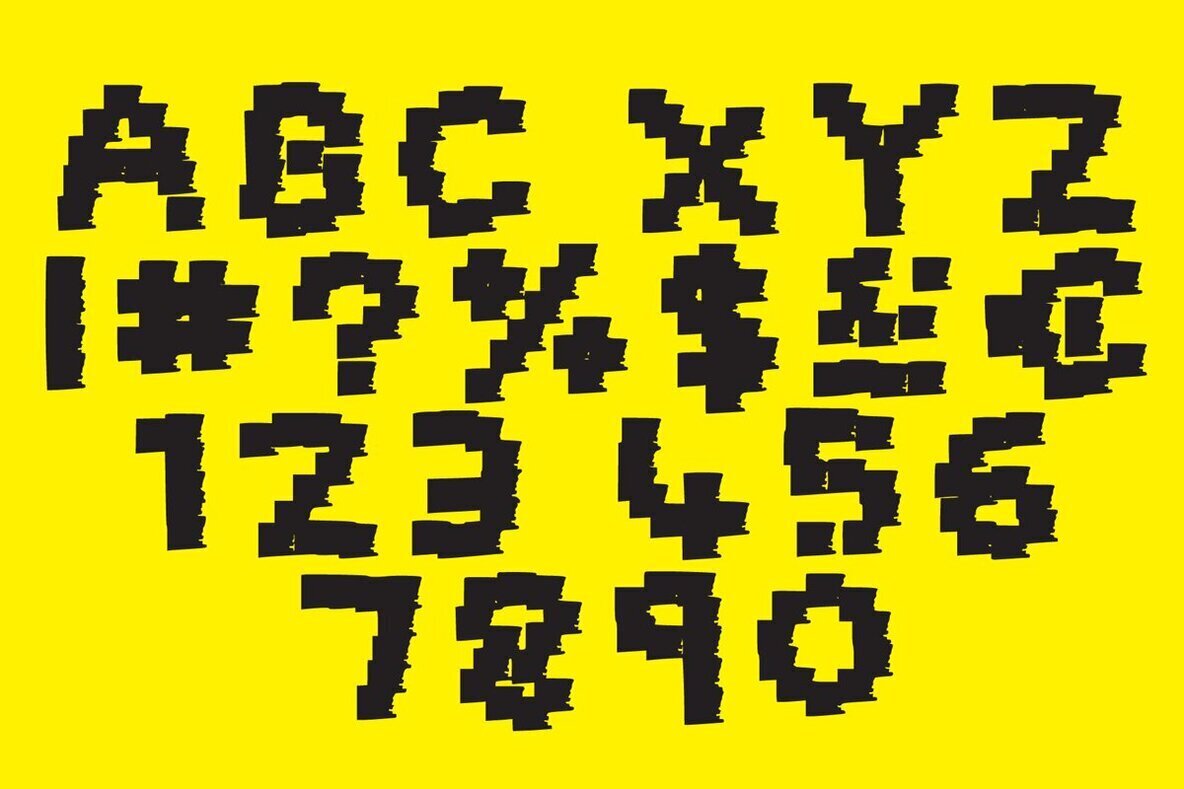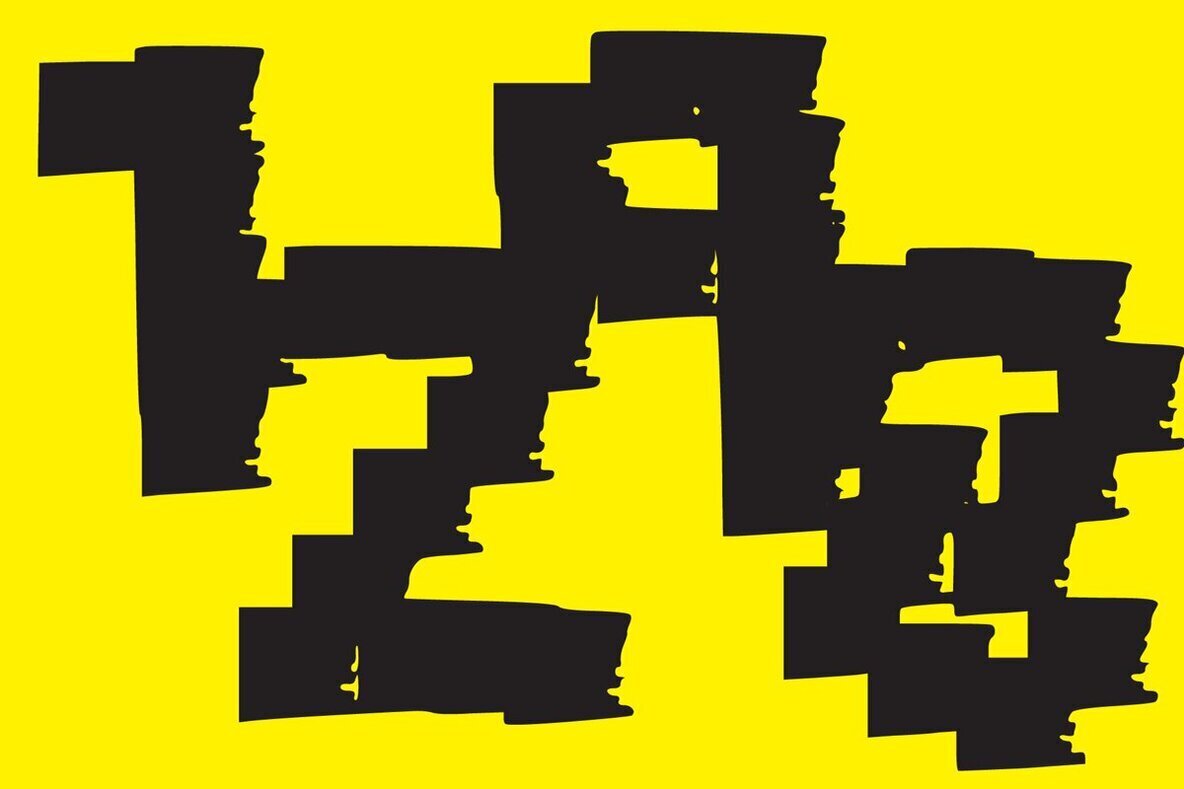
Dirty Note Font
Dirty Note
Dirty Note is a cool, bold and dramatic display font. It has interesting characters which will look trendy of various design ideas. Use this font for your designs and explore its endless possibilities.